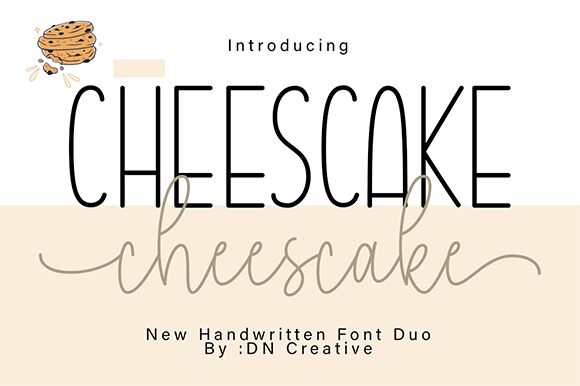
Cheescake Sans
Cheescake Sans font by DN Creative is a light, handwritten typeface that artfully balances a condensed width with modernist influences. With clean lines and minimalist design at its core, the font projects an orderly yet natural style that makes its appearance appealing and universal. Its soft curves and geometric influences enhance letter clarity to imply approachability.
Free for customization in endless possibilities, Cheescake Sans is adaptable in wedding invitations, planners, wall art, logos, branding projects, packaging designs, social media profiles banners or posts. It works perfectly within posters and books titles among other projects where users seek creative visual impact.